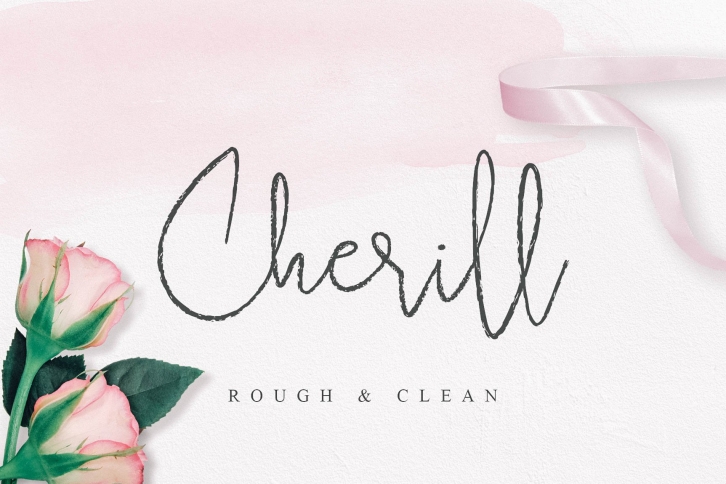
Introducing Cherill! Cherill is a script font with rough & clean version.
It allows you to create stunning and easy hand-lettering in an instant. Ideal for the logo, quotes, wedding, product label/packaging, fashion, letter, advertising, invitation, poster, merchandise, greeting cards, etc
- Numerals